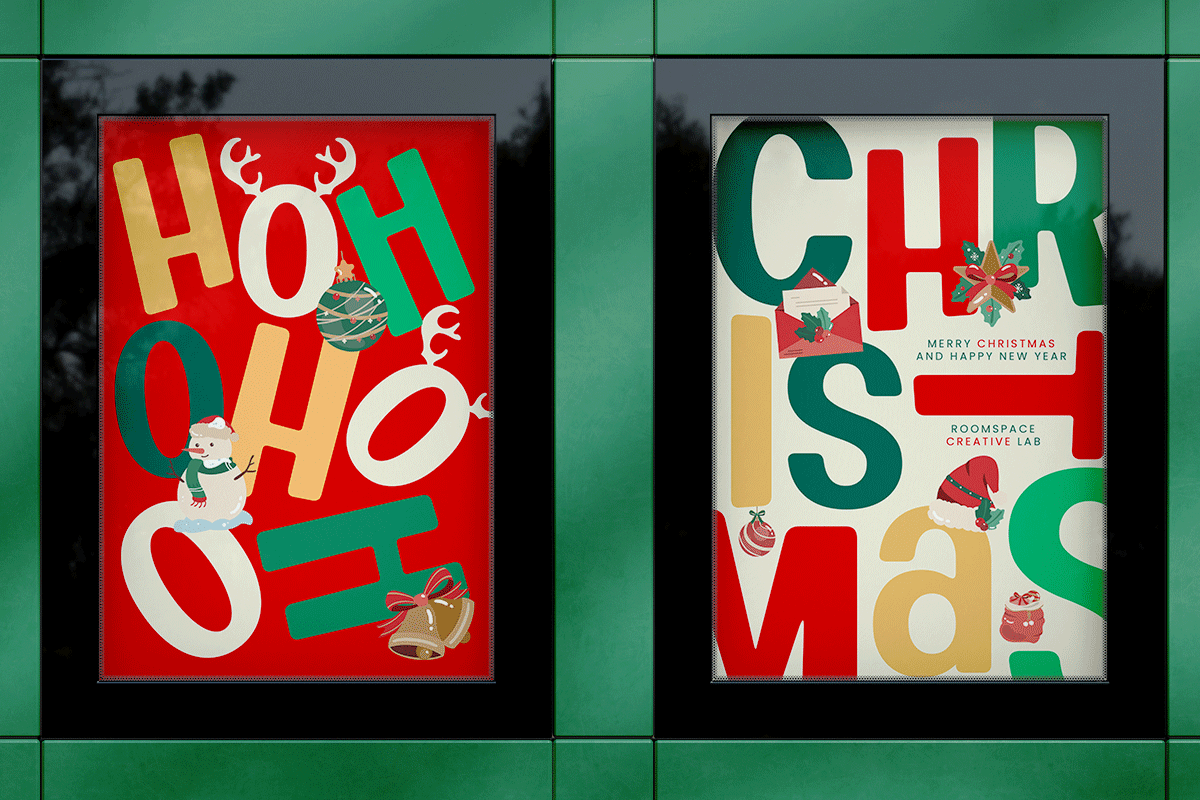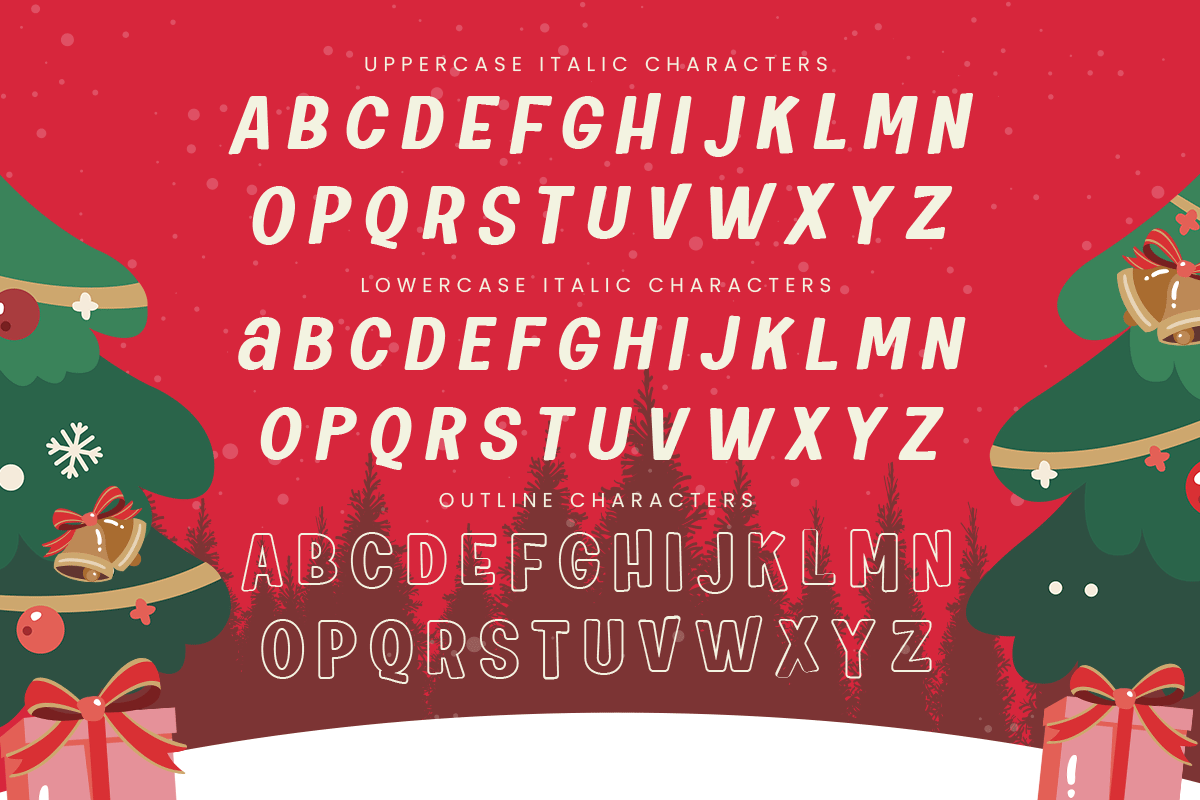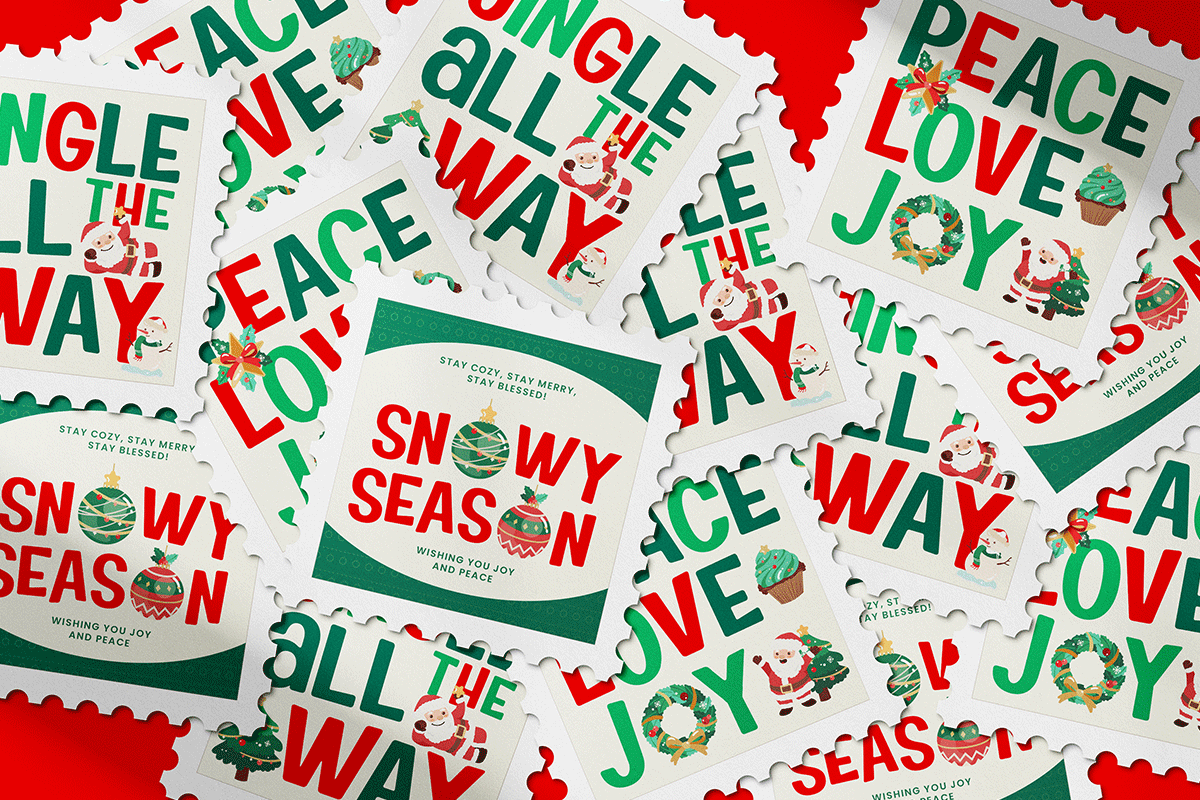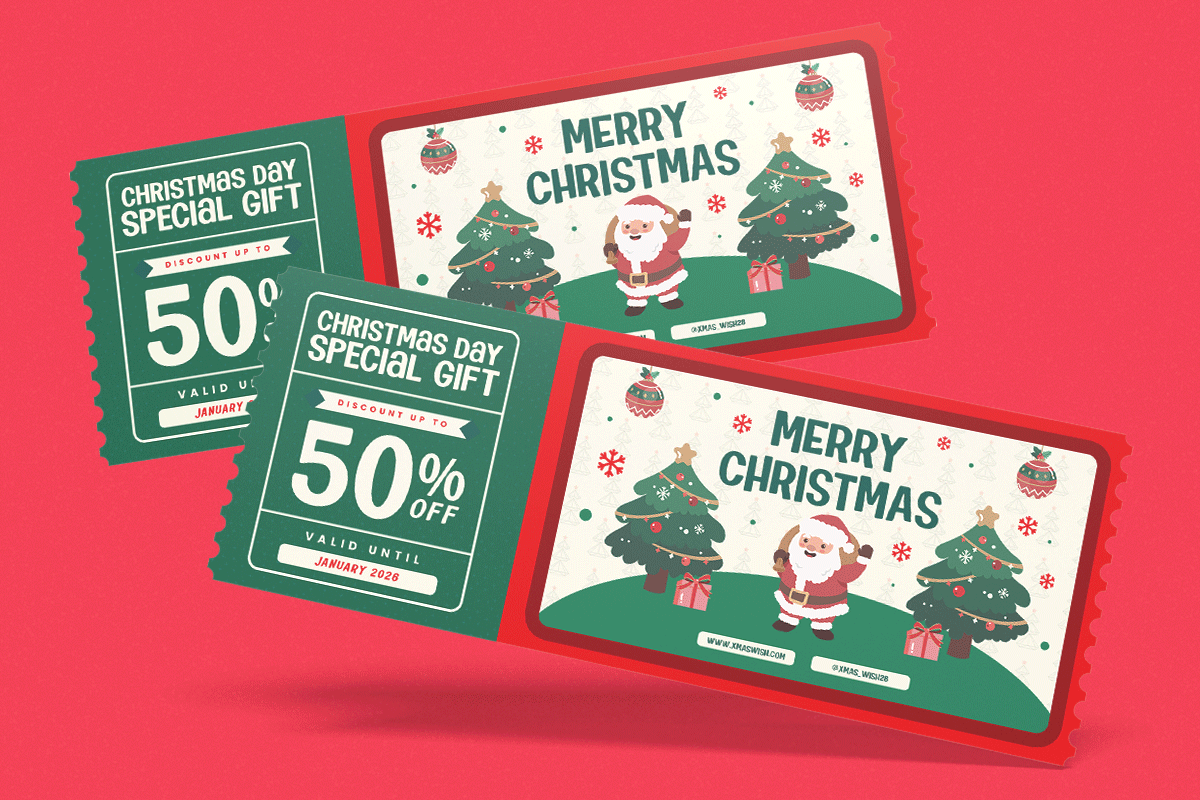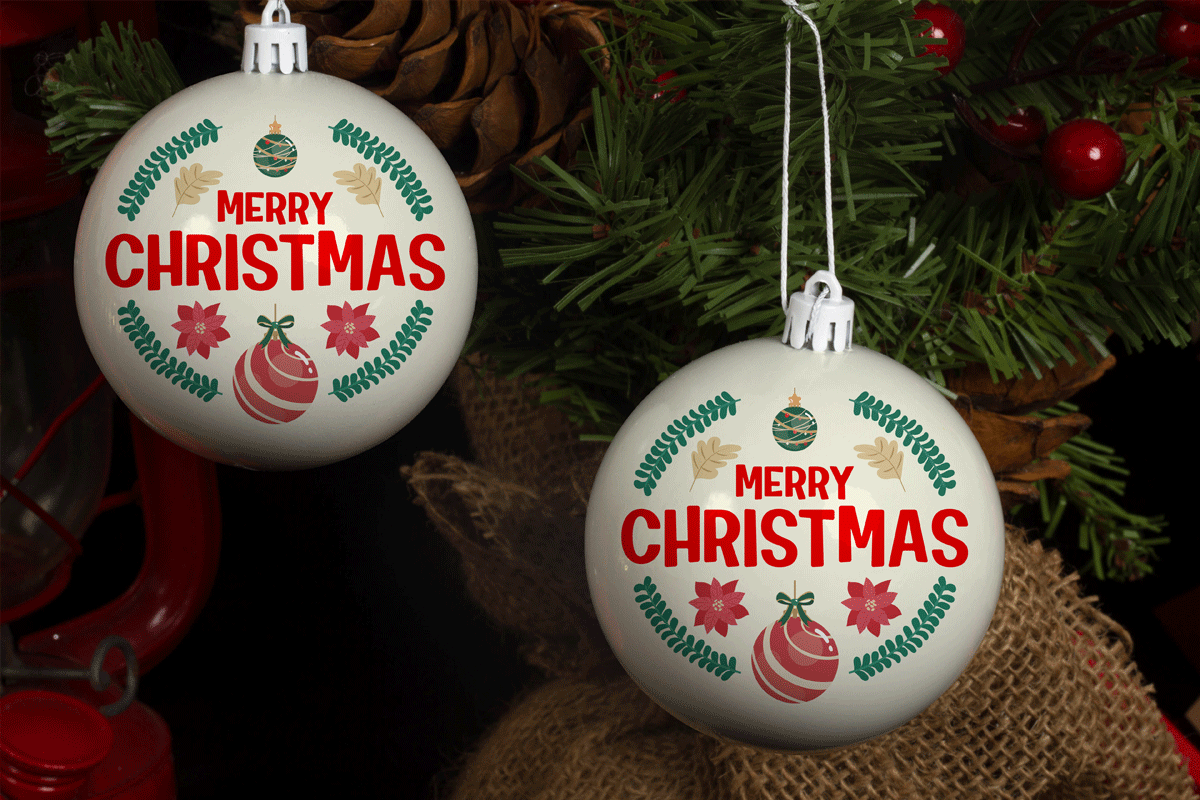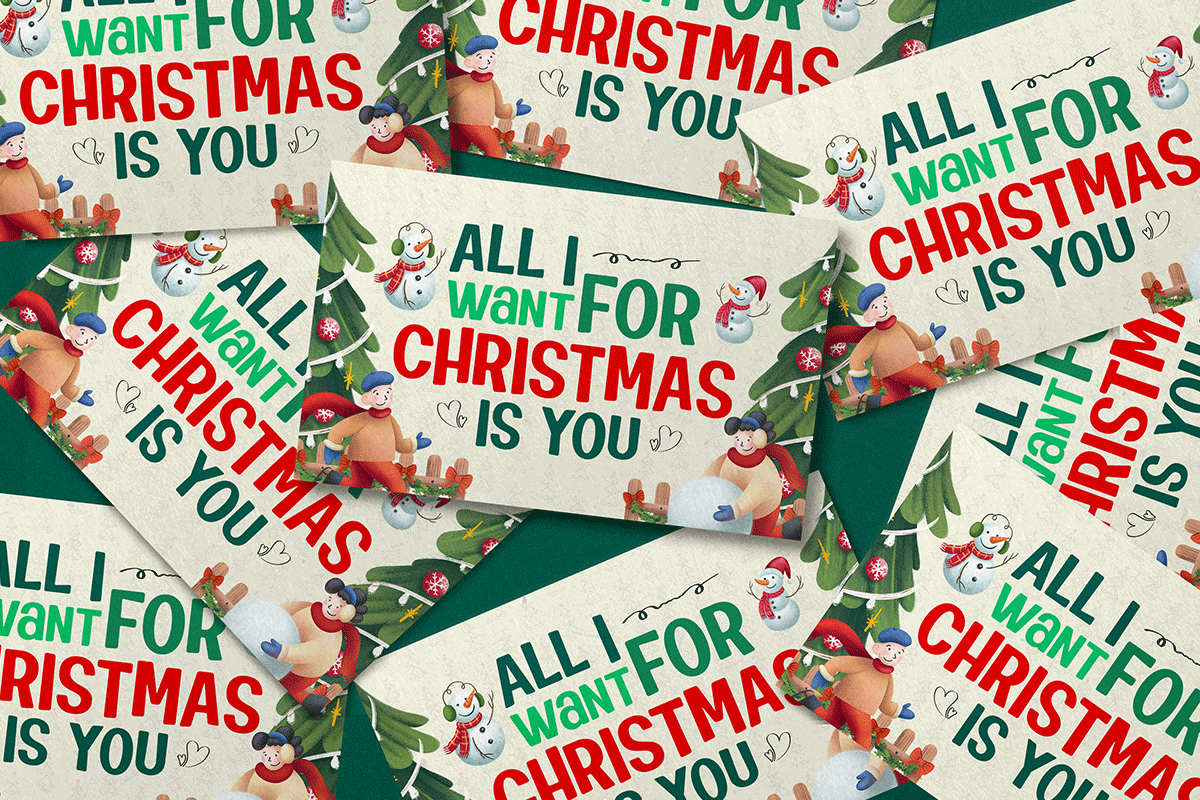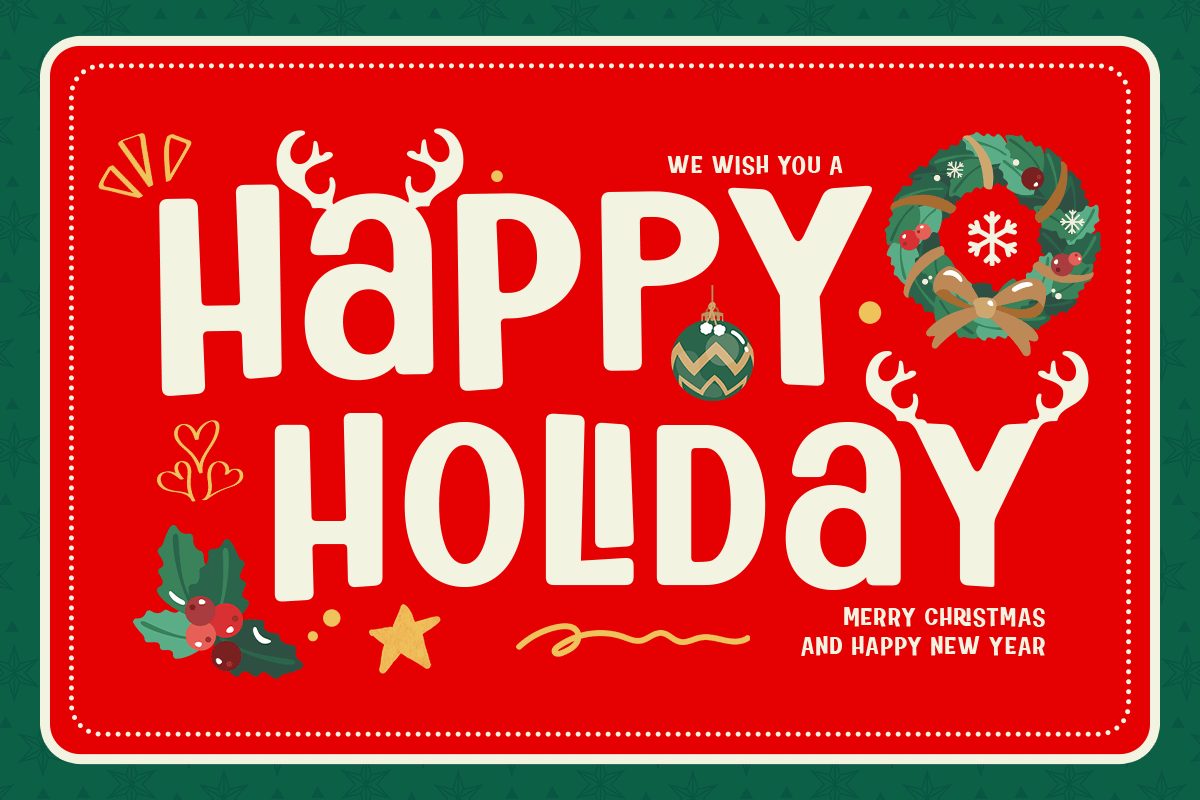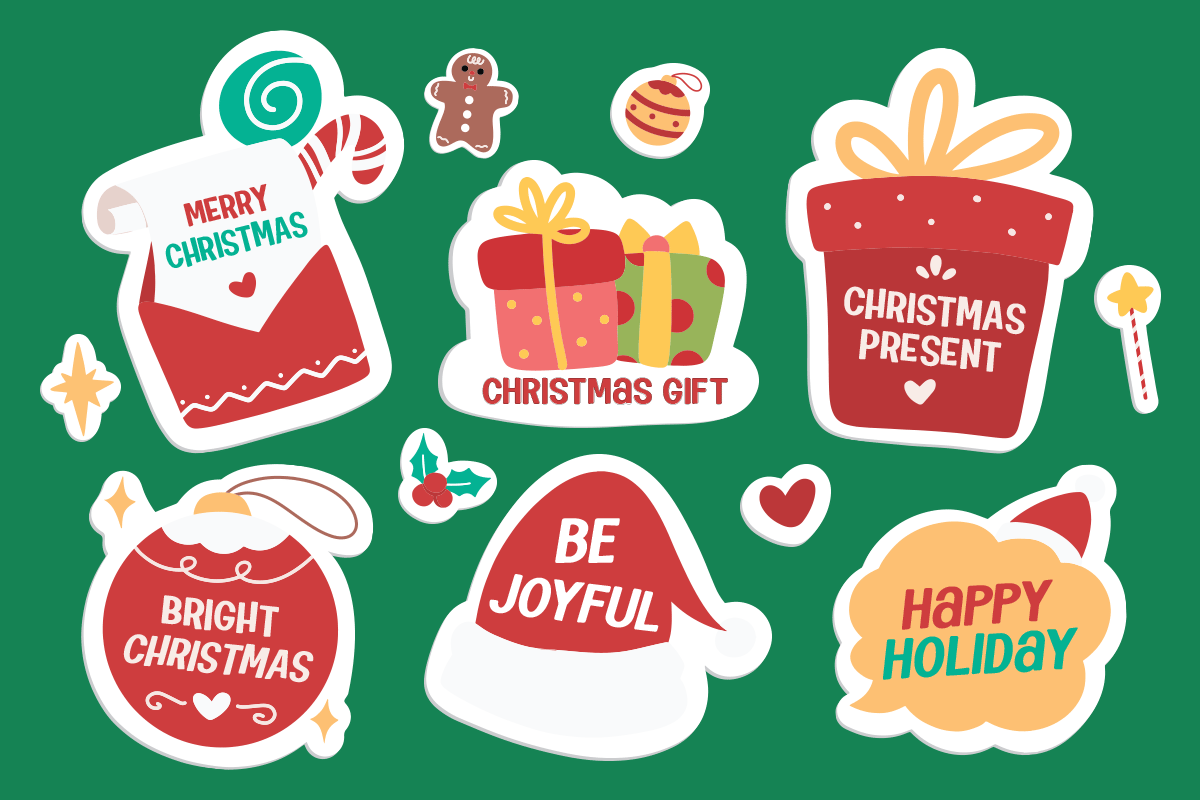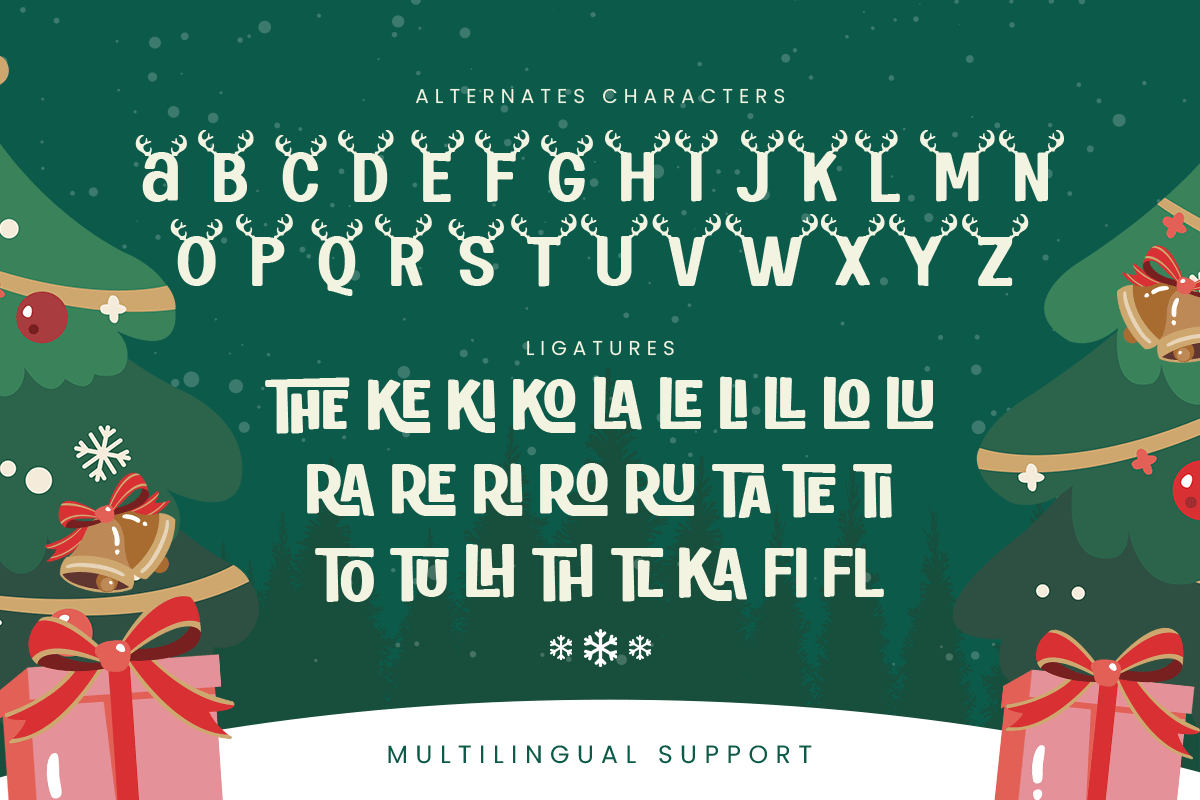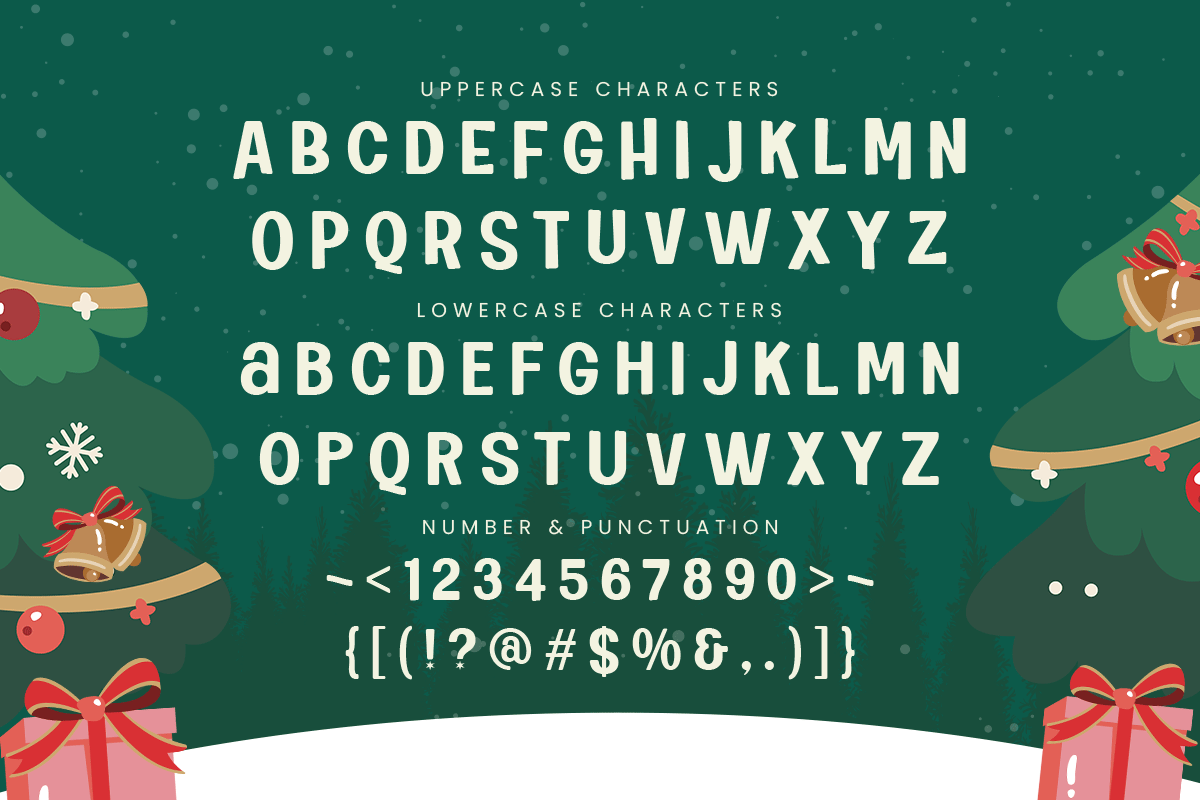
Sparkla – A Fun & Festive Christmas
Sparkla is your new go-to Christmas display font for all things festive and joyful. Designed with cute rounded shapes and holiday-inspired charm, Sparkla brings warmth and excitement to every design. Whether you're creating Christmas cards, gift tags, children’s book titles, holiday packaging, or social media graphics, Sparkla helps your message shine with cheerful energy.
- Playful Christmas display style
- Punctuation & symbols